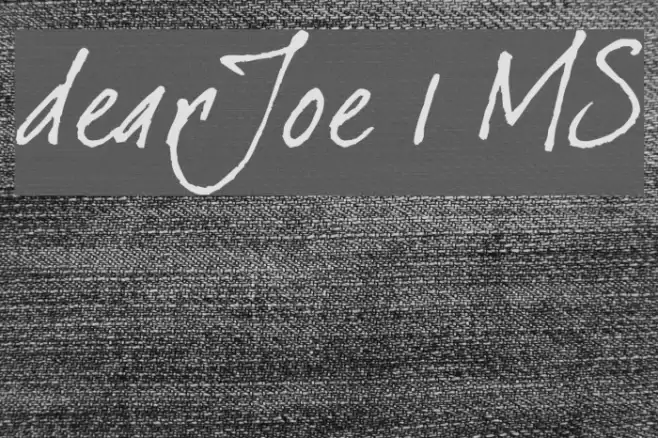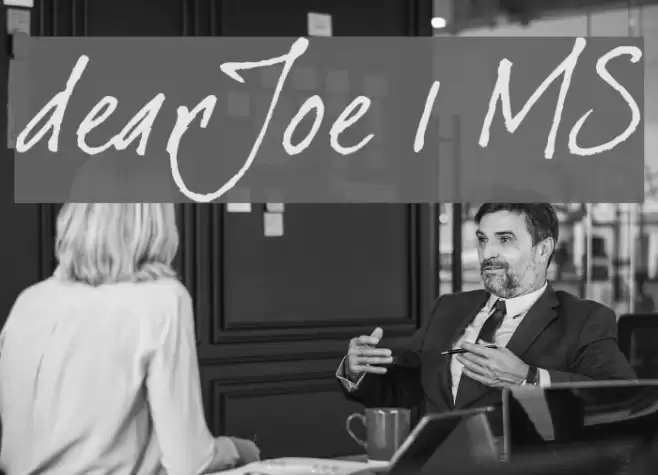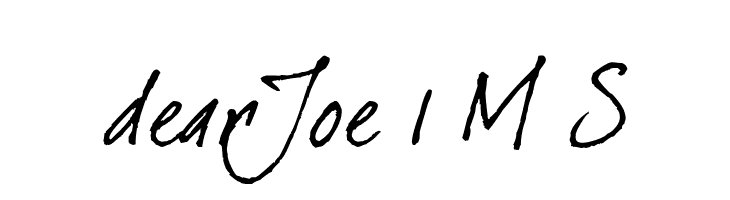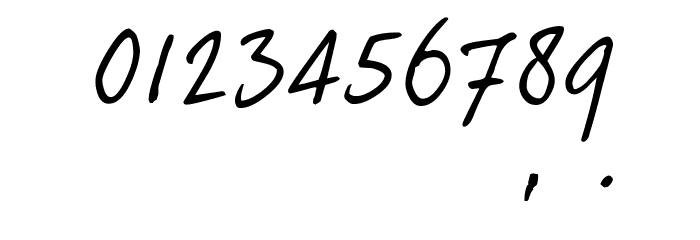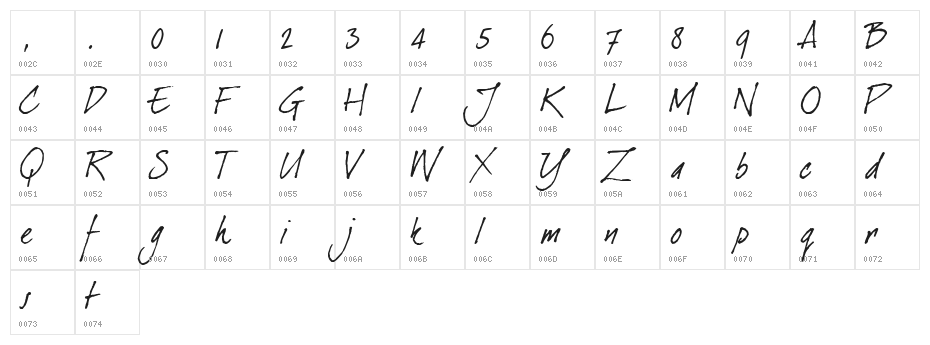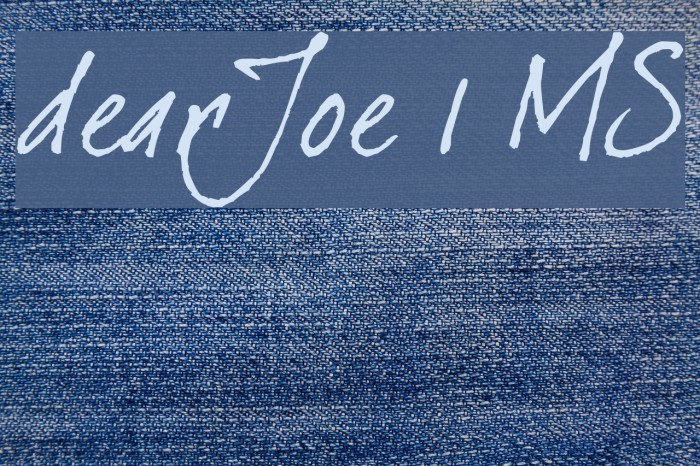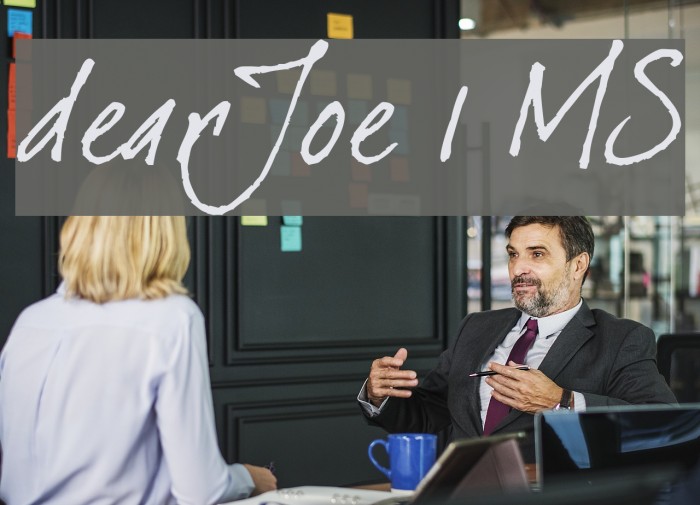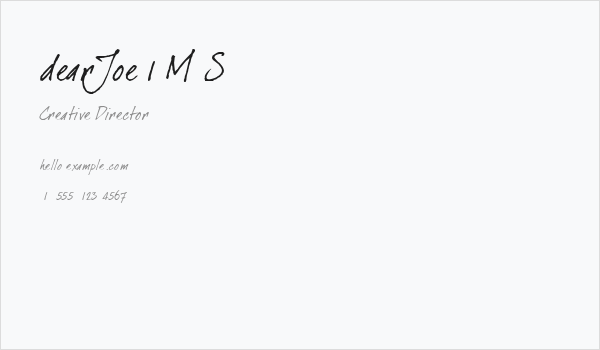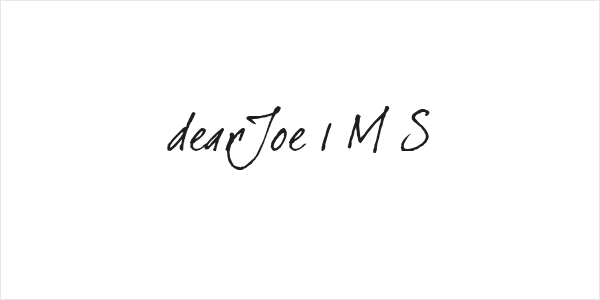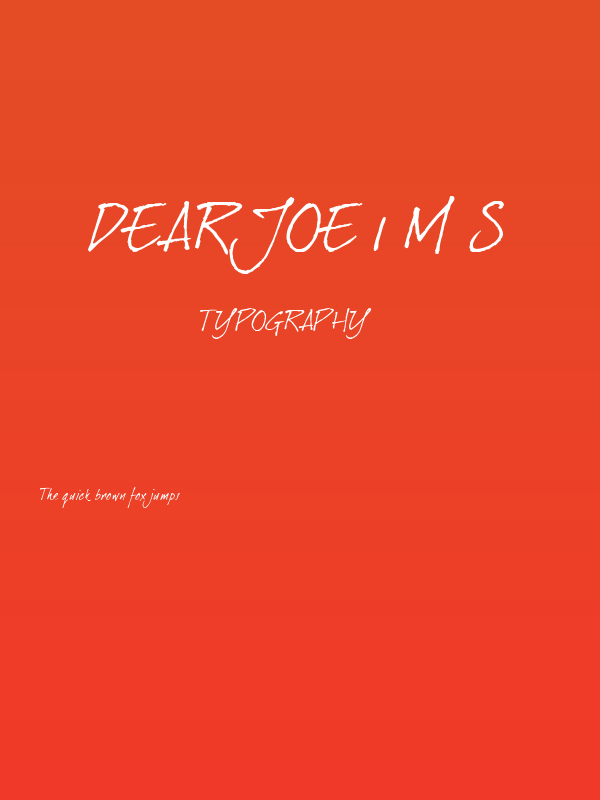
This font features a handwritten style with a casual and organic appearance. The letters are slightly slanted, giving them a dynamic and lively feel. The strokes vary in thickness, adding a natural and personal touch to the text. The uppercase letters are bold and confident, while the lowercase letters maintain a consistent flow, enhancing readability. Numbers and special characters are crafted with the same attention to detail, ensuring a cohesive look across all elements. This font is ideal for projects that require a personal or informal touch, such as invitations, greeting cards, or creative branding.
A dynamic, handwritten font with a casual and organic style from Calligraphic fonts.
- Proposed Projects: Ideal for invitations, greeting cards, personal branding, and creative projects.
- Overall Style: Casual, Organic
- Use Case: Invitations, Greeting cards, Personal branding